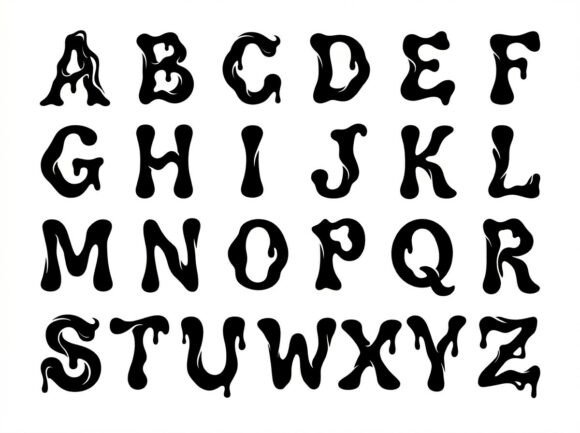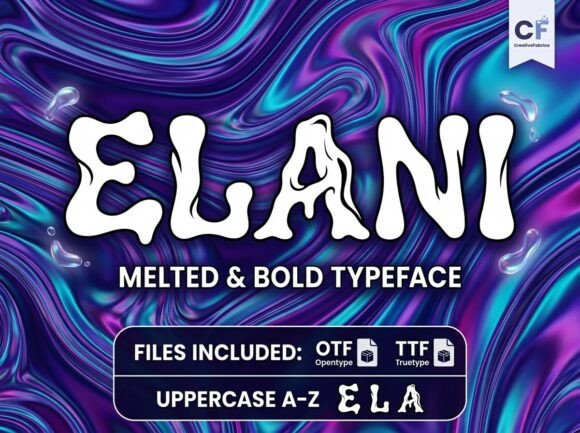
Introducing Elani Font: A Stunning Decorative Display Font
Are you tired of using the same old fonts for your creative projects? Look no further than Elani Font, a unique and artistic display font designed to make a statement. With its strong visual personality and decorative elements, this font is perfect for creators who want to add a touch of elegance and sophistication to their work.
What Makes Elani Font Special?
Elani Font is a decorative display font that is sure to turn heads. Its unique artistic elements and strong visual personality make it perfect for bold headlines, artistic logos, and creative packaging. Whether you’re a designer, crafty DIY enthusiast, or social media influencer, this font is versatile enough to meet your needs while maintaining a professional and polished finish.
IMPORTANT NOTE BEFORE PURCHASE: Elani Font is an ALL-CAPS (Uppercase Only) display typeface. This means that it does not include lowercase letters. It is specifically designed for high-impact headlines, logos, and decorative initials where every letter is a work of art. This unique design feature allows for maximum visual impact and makes it perfect for attention-grabbing applications.
Use Cases for Elani Font
Elani Font is perfect for a variety of creative projects, including:
- Bold Headlines: Use Elani Font to create eye-catching headlines for your blog posts, articles, or social media updates.
- Artistic Logos: Create a unique and memorable logo for your business or brand with Elani Font.
- Creative Packaging: Add a touch of elegance and sophistication to your product packaging with Elani Font.
- Decorative Initials: Use Elani Font to create beautiful decorative initials for your website, social media profiles, or marketing materials.
Why Choose Elani Font?
There are many reasons why Elani Font stands out from the crowd:
- Unique Design: Elani Font features a unique and artistic design that will set your creative projects apart from the rest.
- Versatility: This font is versatile enough to be used for a variety of creative projects, from bold headlines to artistic logos and creative packaging.
- Professional Finish: Elani Font maintains a professional and polished finish, making it perfect for businesses and brands.